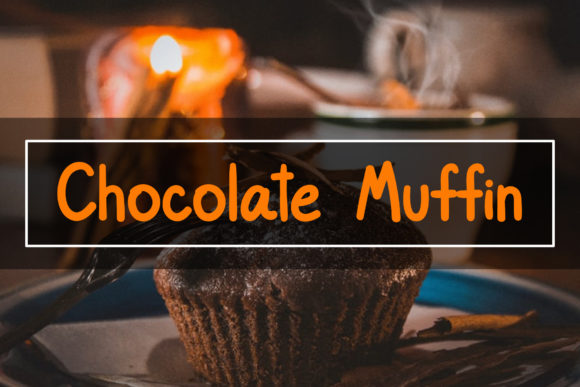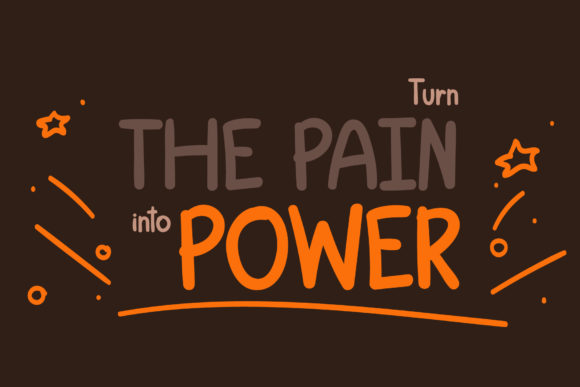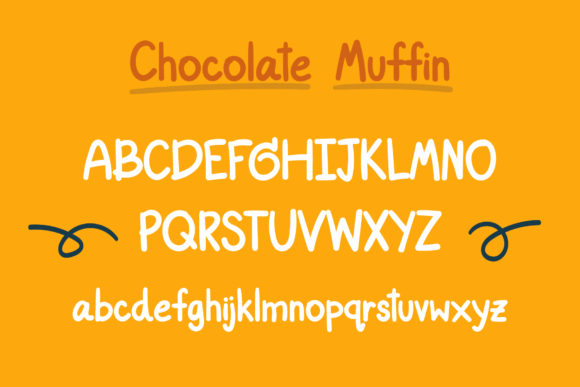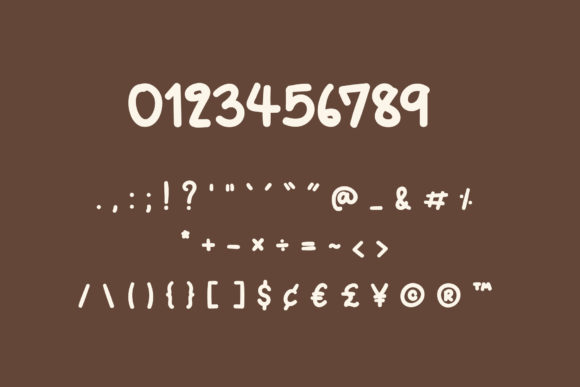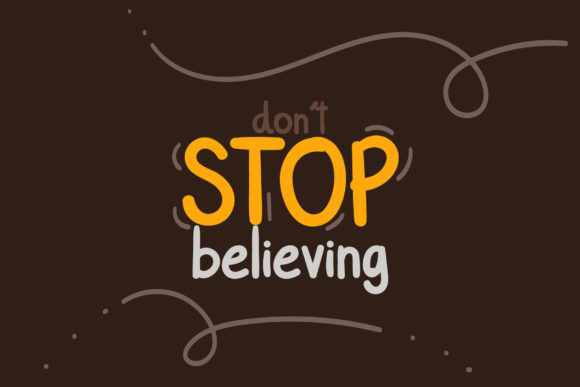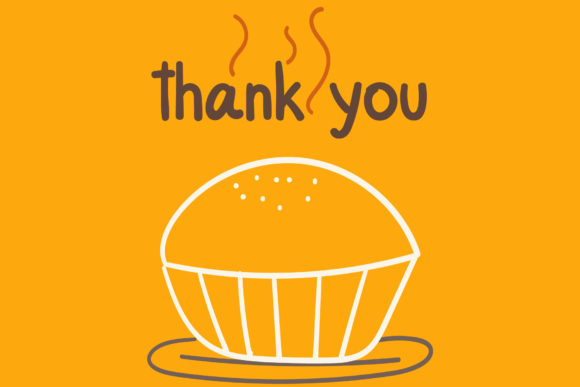
Chocolate Muffin Font
About Chocolate Muffin Font
Chocolate Muffin is a sweet, soft hand-lettered handwritten font. The playful rounded characters make it the perfect font for creating amazing designs!